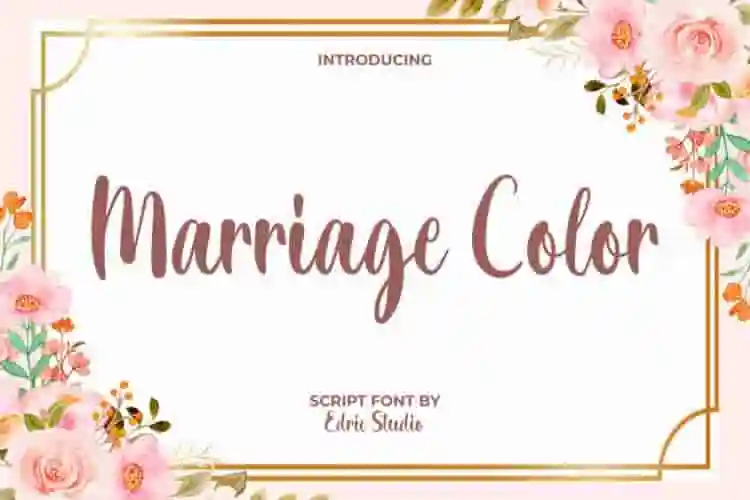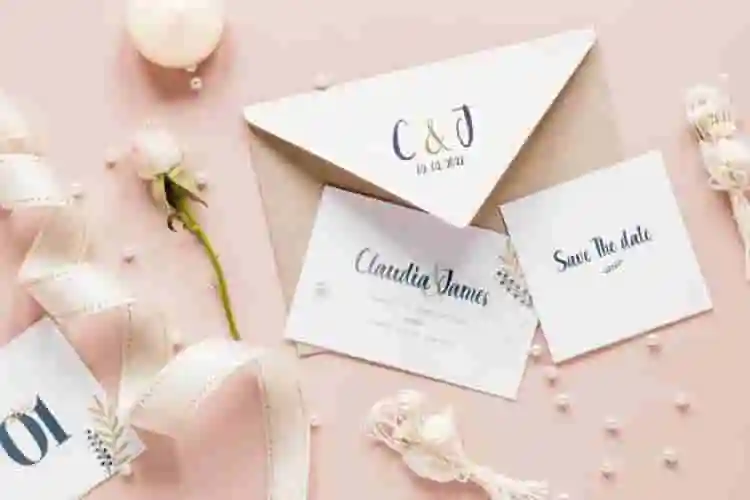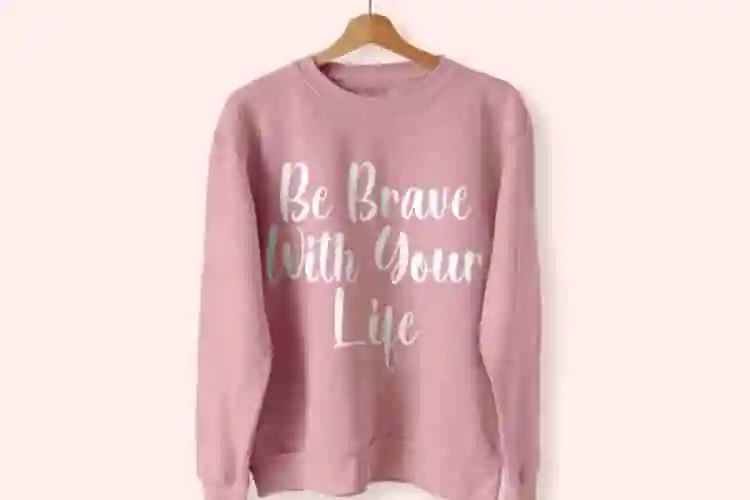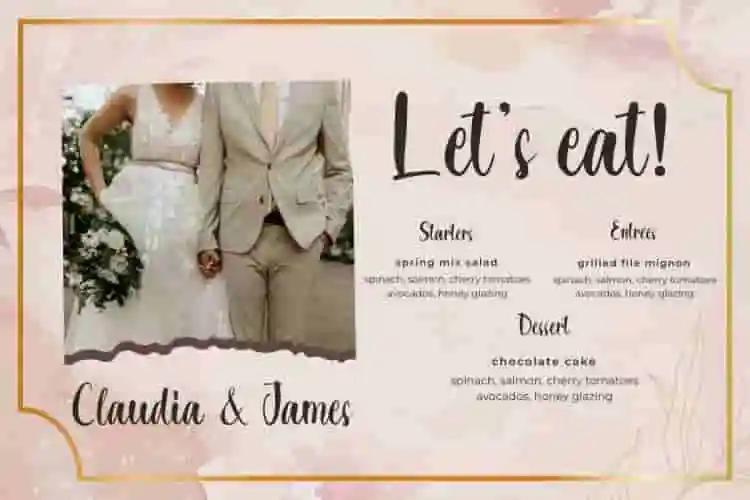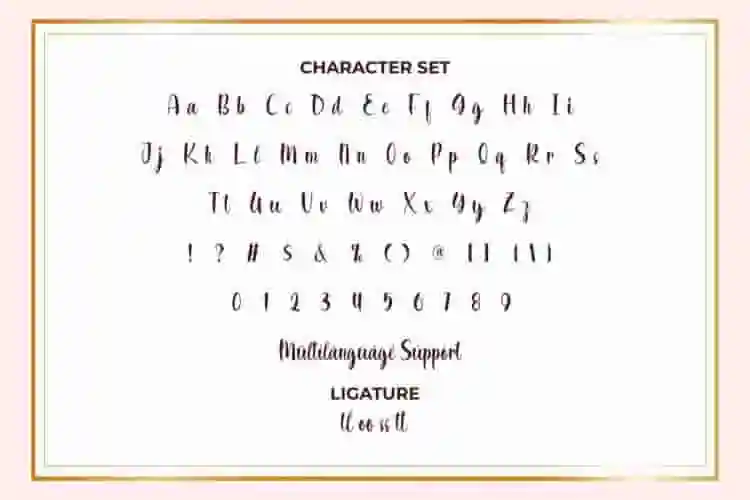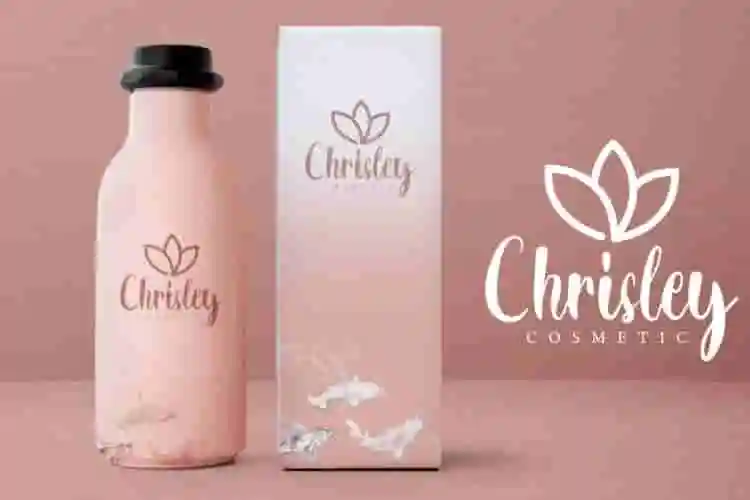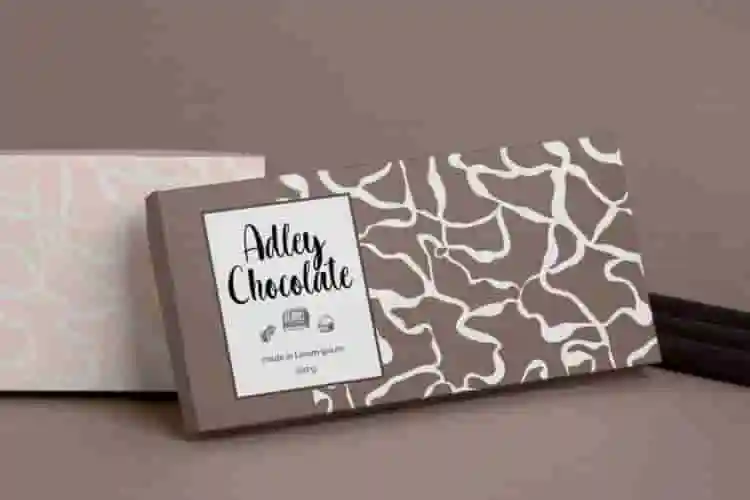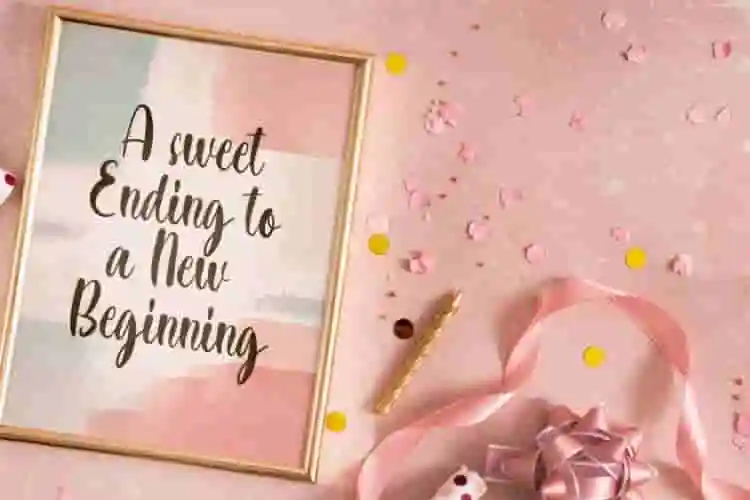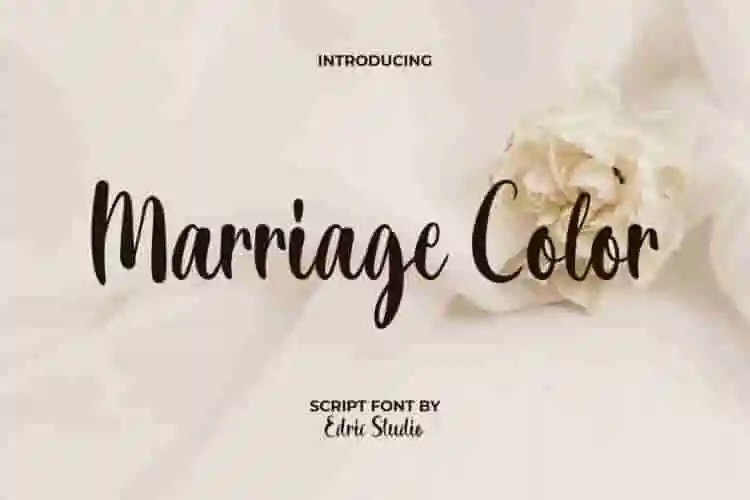
Marriage Color Font is a small brush calligraphic script font inspired by other people’s wedding, created by EdricStudio. This font has the perfect appeal of the dominant use of a thick brush and easy to read making it suitable for any industry, such as clothing brand, cosmetic, food product, event organizer, flower shop, photoshoot, printing, publishing, restaurant, and much more.
Marriage Color Font comes with a full set of Uppercase and Lowercase Basic Characters, Number, a large range of Punctuation and Symbol. It has a stunning characters set, perfectly managed with well spaced and kerning. Marriage Color Font will be great for any projects (with extended license) including : fliers design, invitation, label, menu, packaging design, quotes, screen print, stationery, sticker, etc.
Introducing Marriage Color, a bold and romantic brush font that brings passion and personality into every stroke. Designed with expressive brushwork and artistic charm, this font is perfect for celebrating love, creativity, and unforgettable moments.
Whether you’re designing wedding invitations, branding, greeting cards, or social media graphics, Marriage Color Brush Font adds a handcrafted, energetic feel that’s full of warmth and emotion.
This beautiful brush font blends thick and thin strokes to give your words natural movement and rhythm—just like real brush lettering. It’s bold enough for headlines, yet detailed enough to feel personal and handwritten.
- Uppercase & lowercase characters
- Expressive brush textures
Marriage Color Font also has several Ligature characters that you can choose and use to make it perfectly bonded and stand out. Ready to use both on Windows machine or Mac with simple installations with multilingual characters supported. It’s tested to work well in the Adobe Apps (Illustrator, Adobe InDesign, Adobe Photoshop) even work on Microsoft Word. PUA Encode Characters means you can access all characters easily – Fully accessible without additional design software.